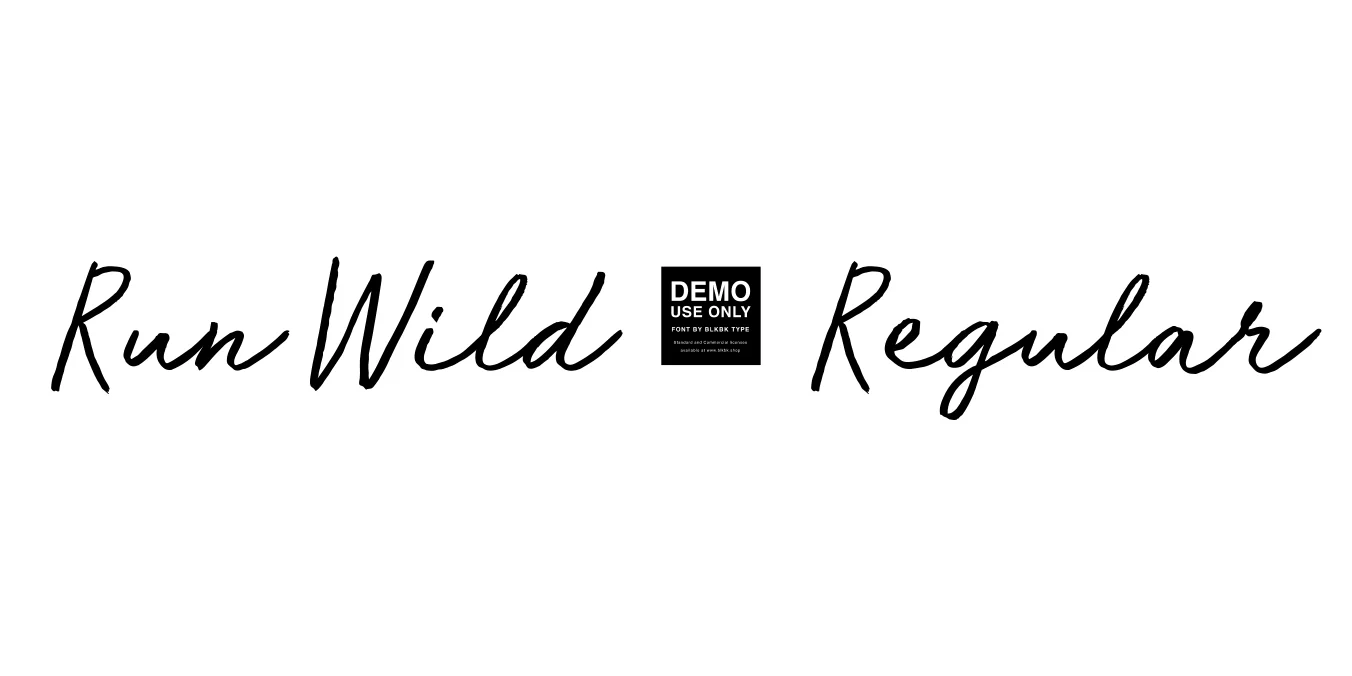
Run Wild - Regular
Designed by Cindy Kinash (Cultivated Mind)
| Category | Script / Brush |
| Designer | Cindy Kinash (Cultivated Mind) |
Run Wild - Regular is a striking, hand-painted brush font created by Cindy Kinash of Cultivated Mind. This font was designed to capture the essence of organic movement and spontaneous creativity, featuring raw, textured strokes that mimic the look of actual ink on paper. Its adventurous spirit and modern calligraphic style make it a standout choice for designers aiming to add a personal, artisanal touch to their digital and print projects.
Beyond its primary letterforms, Run Wild is celebrated for its natural flow and authentic imperfections. The font is built with a contemporary aesthetic in mind, making it highly effective for lifestyle branding, social media content, and high-end packaging. Its balanced weight and expressive swashes ensure that it remains legible while providing a handcrafted feel that is both sophisticated and rebellious.
Run Wild - Regular Best Uses
Perfect for creating unique logos with an approachable, hand-drawn feel.
Excellent for quote graphics, Instagram stories, and stylish overlays.
Ideal for elegant wedding invitations and personalized greeting cards.
A great choice for trendy t-shirt slogans and lifestyle merchandise.